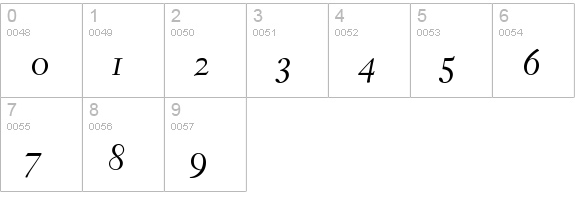
EldoradoText-LightItalic is a sleek and sophisticated font that exudes elegance and modernity. Its gentle italics add a touch of flair and style to any design project. This font is perfect for creating a sense of sophistication and refinement in your texts. Whether you are working on a branding project, editorial design, or any other creative endeavor, EldoradoText-LightItalic will surely elevate your work to the next level. And the best part? EldoradoText-LightItalic is completely free to use! You can download this stunning font for free at FontsMarket.com and start using it in your projects right away. Don't miss out on this amazing opportunity to enhance your designs with the beauty and elegance of EldoradoText-LightItalic. Download it now and let your creativity shine!